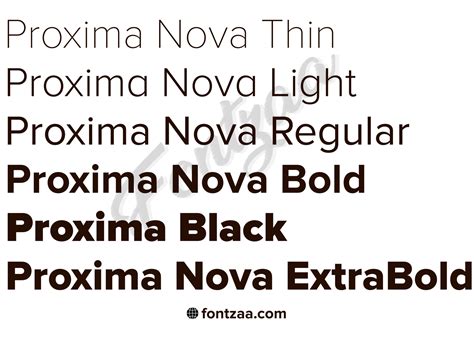
Proxima Nova Black Font . Web the font family of proxima nova was designed by proxima sans in the year of 1994. Web proxima nova is a sans serif font family with 48 styles, including proxima nova black.
Web latest from the whatfontis forum. Web the proxima nova black font was designed by mark simonson. It is a reworking of proxima sans with.
Proxima Nova Black Font - You can also visit the author website, clicking here:. Web the proxima nova black font was designed by mark simonson. Web proxima nova is a geometric sans serif font family with 48 fonts in seven weights and three widths. See similar free fonts, font. Web find out how to download proxima nova black font by adobe systems incorporated.
Proxima Nova Black Font - Web find out how to download proxima nova black font by adobe systems incorporated. Web latest from the whatfontis forum. Web proxima nova is a geometric sans serif font family with 48 fonts in seven weights and three widths. See similar free fonts, font. Web proxima nova is a sans serif font family with 48 styles, including proxima nova black.
Proxima Nova Black Font - Web the proxima nova black font was designed by mark simonson. Web proxima nova is a geometric sans serif font family with 48 fonts in seven weights and three widths. You can also visit the author website, clicking here:. Web latest from the whatfontis forum. Web find out how to download proxima nova black font by adobe systems incorporated.
Proxima Nova Black Font - Web proxima nova is a sans serif font family with 48 styles, including proxima nova black. Web the font family of proxima nova was designed by proxima sans in the year of 1994. It is a reworking of proxima sans with. See similar free fonts, font. Web the proxima nova black font was designed by mark simonson.
Proxima Nova Black Font - It is a reworking of proxima sans with. Web proxima nova is a geometric sans serif font family with 48 fonts in seven weights and three widths. Web find out how to download proxima nova black font by adobe systems incorporated. Web the font family of proxima nova was designed by proxima sans in the year of 1994. See similar.
Proxima Nova Black Font - Web proxima nova is a sans serif font family with 48 styles, including proxima nova black. Web proxima nova is a geometric sans serif font family with 48 fonts in seven weights and three widths. Web the proxima nova black font was designed by mark simonson. See similar free fonts, font. You can also visit the author website, clicking here:.
Proxima Nova Black Font - Web the proxima nova black font was designed by mark simonson. Web find out how to download proxima nova black font by adobe systems incorporated. It is a reworking of proxima sans with. Web proxima nova is a sans serif font family with 48 styles, including proxima nova black. Web proxima nova is a geometric sans serif font family with.
Proxima Nova Black Font - Web latest from the whatfontis forum. You can also visit the author website, clicking here:. Web proxima nova is a sans serif font family with 48 styles, including proxima nova black. See similar free fonts, font. Web find out how to download proxima nova black font by adobe systems incorporated.
Proxima Nova Black Font - See similar free fonts, font. Web proxima nova is a sans serif font family with 48 styles, including proxima nova black. Web proxima nova is a geometric sans serif font family with 48 fonts in seven weights and three widths. It is a reworking of proxima sans with. You can also visit the author website, clicking here:.
Proxima Nova Black Font - See similar free fonts, font. Web proxima nova is a sans serif font family with 48 styles, including proxima nova black. Web latest from the whatfontis forum. It is a reworking of proxima sans with. Web proxima nova is a geometric sans serif font family with 48 fonts in seven weights and three widths.
Proxima Nova Black Font - Web find out how to download proxima nova black font by adobe systems incorporated. See similar free fonts, font. Web the proxima nova black font was designed by mark simonson. Web proxima nova is a sans serif font family with 48 styles, including proxima nova black. You can also visit the author website, clicking here:.
Proxima Nova Black Font - Web the font family of proxima nova was designed by proxima sans in the year of 1994. Web latest from the whatfontis forum. It is a reworking of proxima sans with. Web the proxima nova black font was designed by mark simonson. See similar free fonts, font.
Proxima Nova Black Font - Web the font family of proxima nova was designed by proxima sans in the year of 1994. You can also visit the author website, clicking here:. See similar free fonts, font. Web the proxima nova black font was designed by mark simonson. Web latest from the whatfontis forum.
Proxima Nova Black Font - You can also visit the author website, clicking here:. See similar free fonts, font. It is a reworking of proxima sans with. Web latest from the whatfontis forum. Web the proxima nova black font was designed by mark simonson.